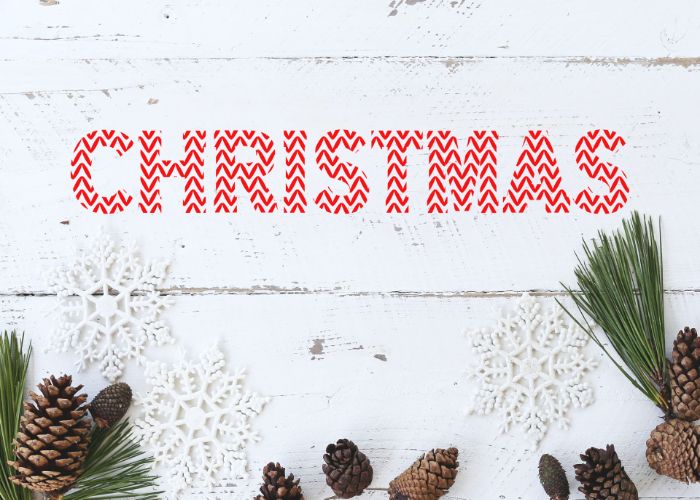
• Warm & festive decorative font
• Perfect for cards, posters, mugs, apparel
Free Christmas Font
An incredibly unique and interesting decorative font. Warm and festive, this font is perfect for designing all your holiday creations.
You use this freebie to create Christmas cards, t-shirts, other apparel, posters, and mugs.